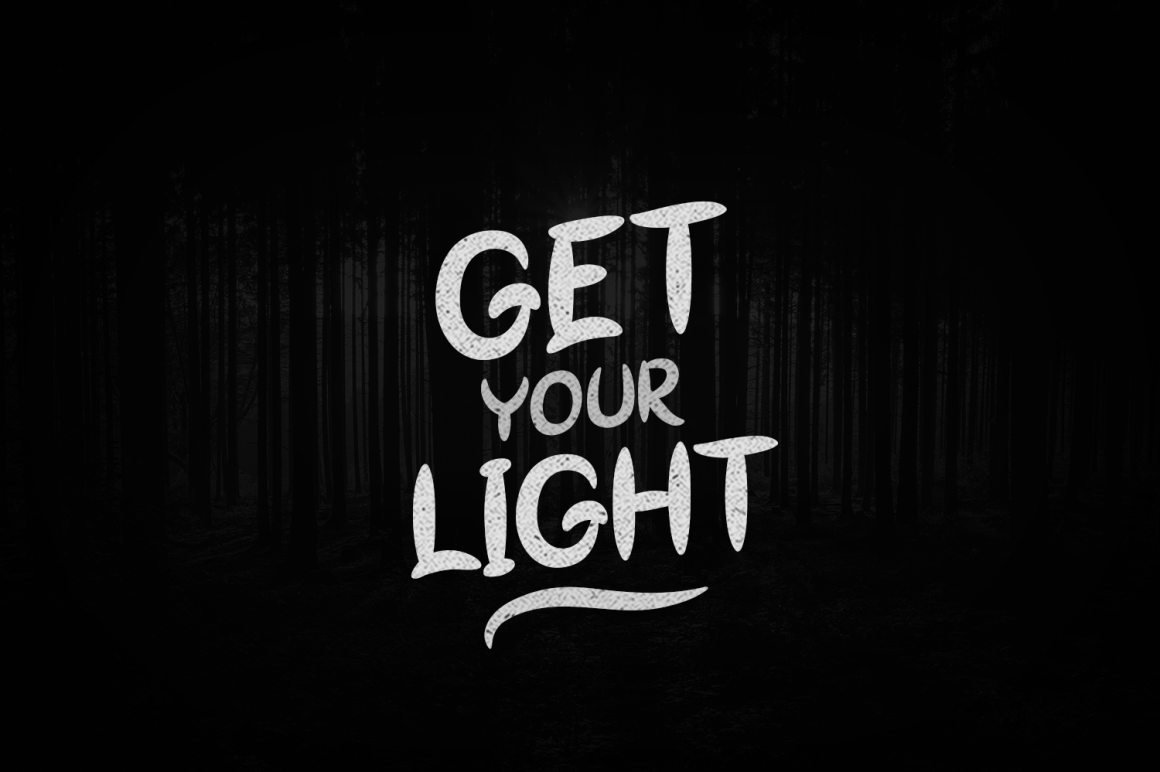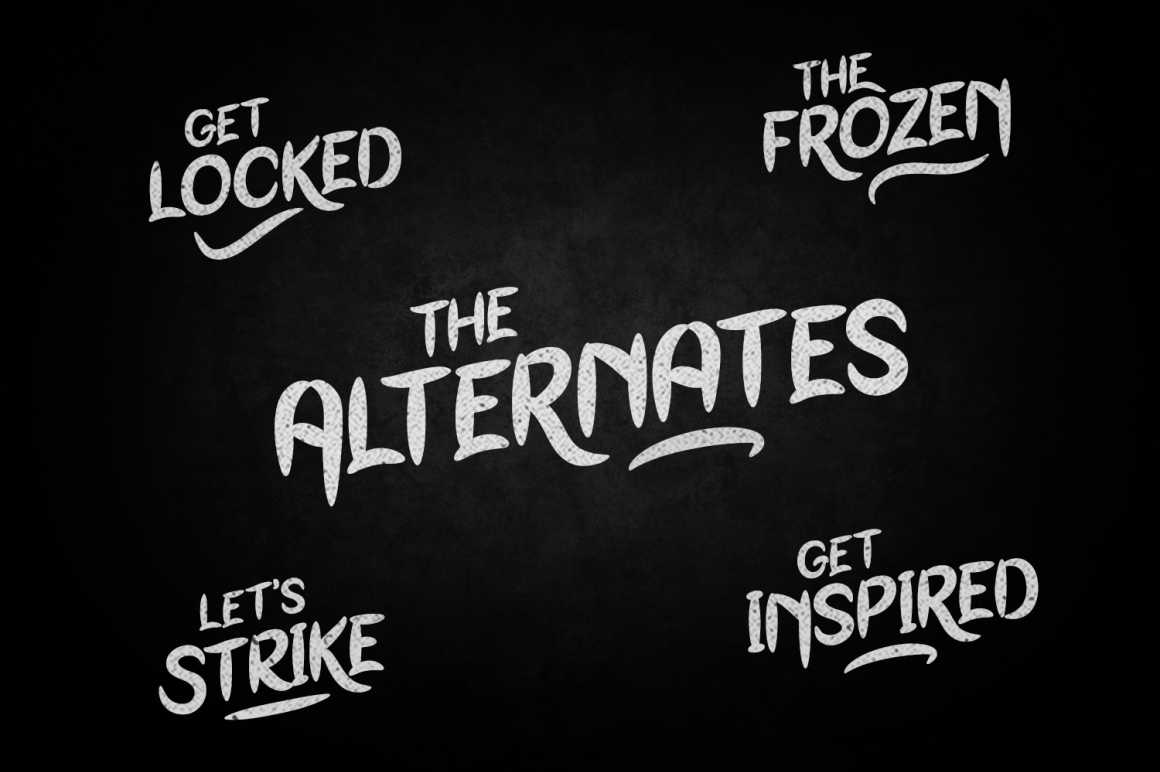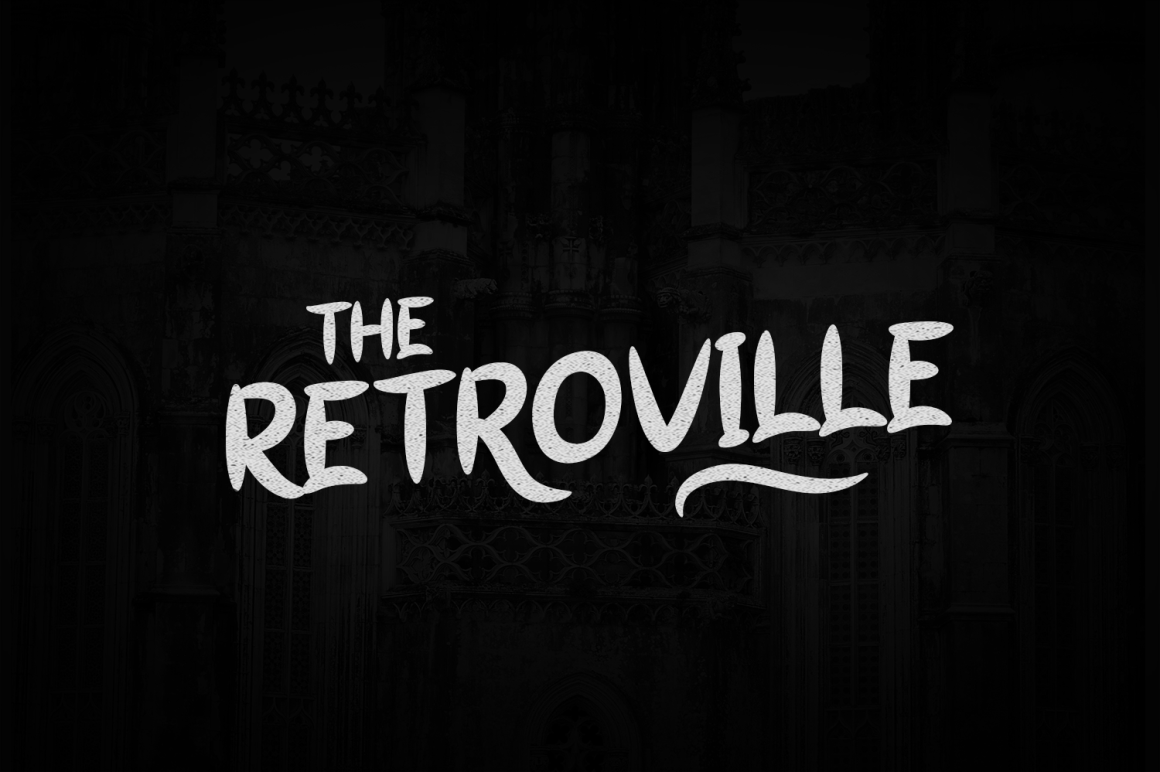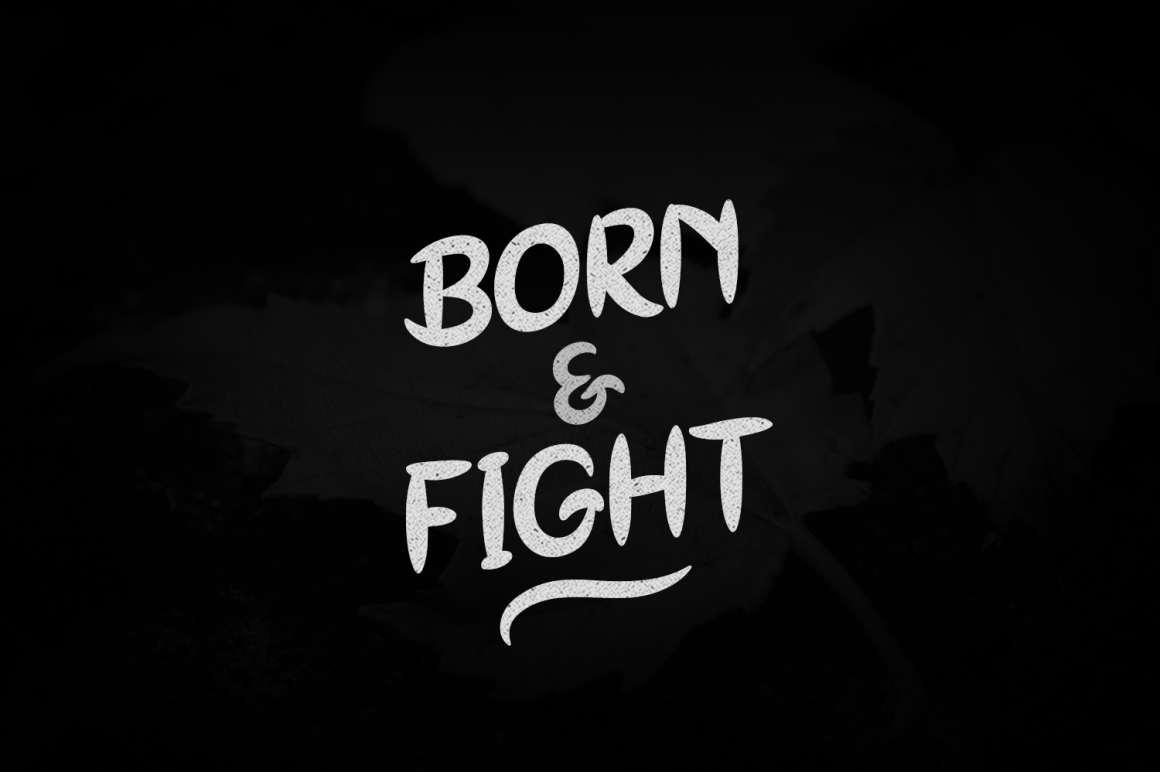
Genoock Font: Elevate Your Designs with a Bold, Retro Twist
In the world of typography, fonts play a crucial role in conveying messages, evoking emotions, and setting the tone for a design. For designers and crafters looking to add a unique touch to their projects, Genoock Font is an excellent choice. This bold, all-caps font is designed to make a statement, with stylistic alternates that offer a fresh spin on traditional typography.
The Genoock Advantage: A Bold, Retro-Inspired Font
Genoock Font is perfect for those who crave a retro-inspired aesthetic with an eclectic twist. Its bold, all-caps design ensures that your headlines and titles grab attention, while its stylistic alternates provide a level of versatility that’s hard to find in traditional fonts. Whether you’re working on a branding project, a poster, or a digital design, Genoock Font is sure to elevate your work.
Key Features of Genoock Font
• Bold, All-Caps Design: Genoock Font is designed to make a statement, with bold, all-caps letters that demand attention.
• Stylistic Alternates: With stylistic alternates, you can add a unique touch to your designs, creating a more compelling and engaging visual experience.
• Retro-Inspired Aesthetic: Genoock Font’s retro-inspired design makes it perfect for projects that require a vintage or eclectic feel.
• Eclectic and Versatile: This font’s eclectic design ensures that it can be used in a variety of contexts, from digital designs to print materials.
Why Choose Genoock Font?
So, why should you choose Genoock Font for your next design project? Here are just a few compelling reasons:
• Stand Out from the Crowd: With Genoock Font, you can create designs that stand out from the crowd, grabbing attention and making a lasting impression.
• Add a Unique Touch: This font’s stylistic alternates and retro-inspired design ensure that your designs have a unique touch that’s hard to find in traditional fonts.
• Perfect for Headlines and Titles: Genoock Font is specifically designed for headlines and titles, making it perfect for projects that require a bold, attention-grabbing font.
• Easily Customizable: With its stylistic alternates and versatile design, Genoock Font is easily customizable to fit your project’s specific needs.
Tips for Using Genoock Font Effectively
To get the most out of Genoock Font, here are a few tips to keep in mind:
• Use it for Headlines and Titles: Genoock Font is perfect for headlines and titles, so use it to grab attention and set the tone for your design.
• Experiment with Stylistic Alternates: Don’t be afraid to experiment with Genoock Font’s stylistic alternates to add a unique touch to your designs.
• Pair it with Complementary Fonts: Pair Genoock Font with complementary fonts to create a visually appealing and harmonious design.
• Keep it Simple: While Genoock Font is bold and attention-grabbing, it’s essential to keep your design simple and uncluttered to ensure that the font shines.
In conclusion, Genoock Font is an excellent choice for designers and crafters looking to add a unique touch to their projects. With its bold, all-caps design, stylistic alternates, and retro-inspired aesthetic, this font is perfect for headlines and titles that require a bold, attention-grabbing font. By following the tips outlined above, you can use Genoock Font to elevate your designs and create a lasting impression.